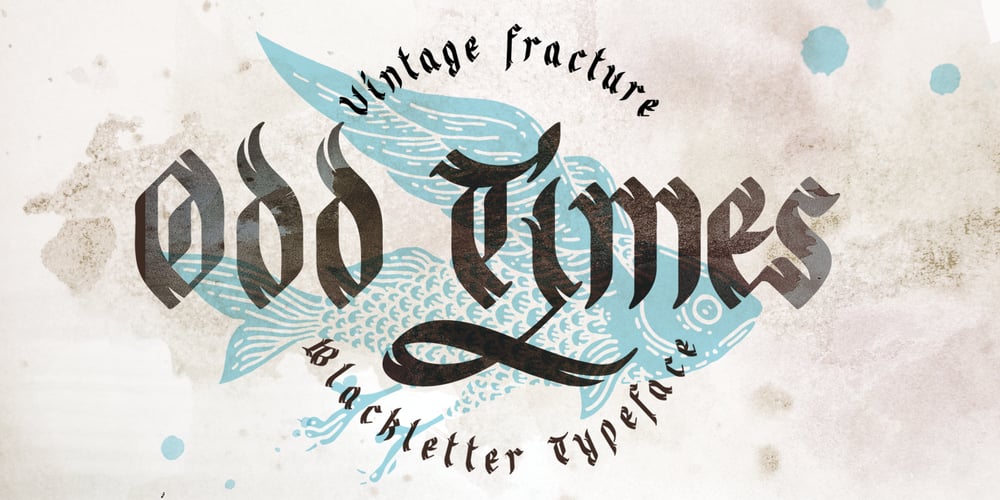
Odd Times Font Family was designed by Gleb Guralnyk and published by Gleb Guralnyk. Odd Times contains 1 styles and family package options. Introducing medieval blackletter typeface “Odd times”. It’s inspired by old fracture calligraphy.